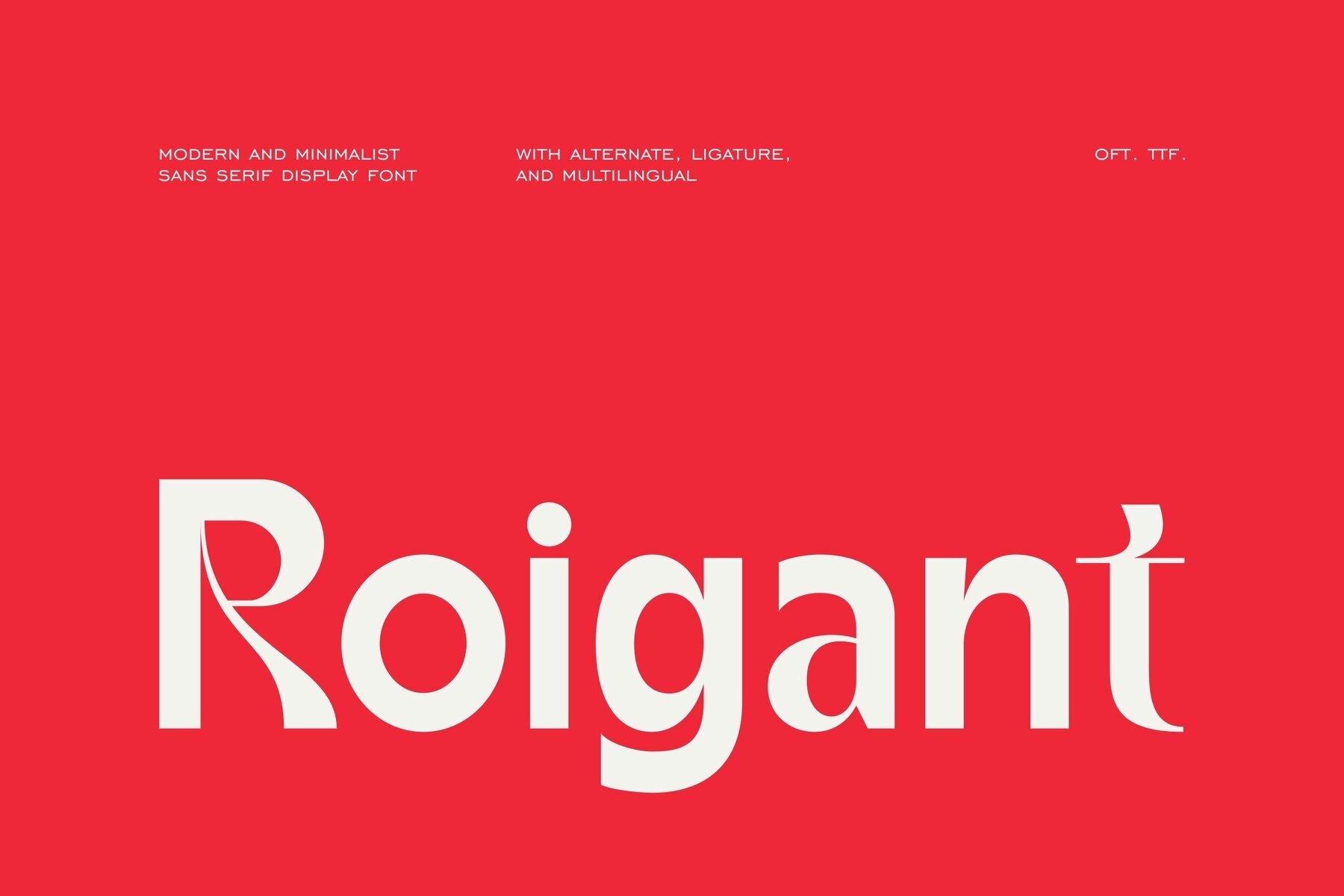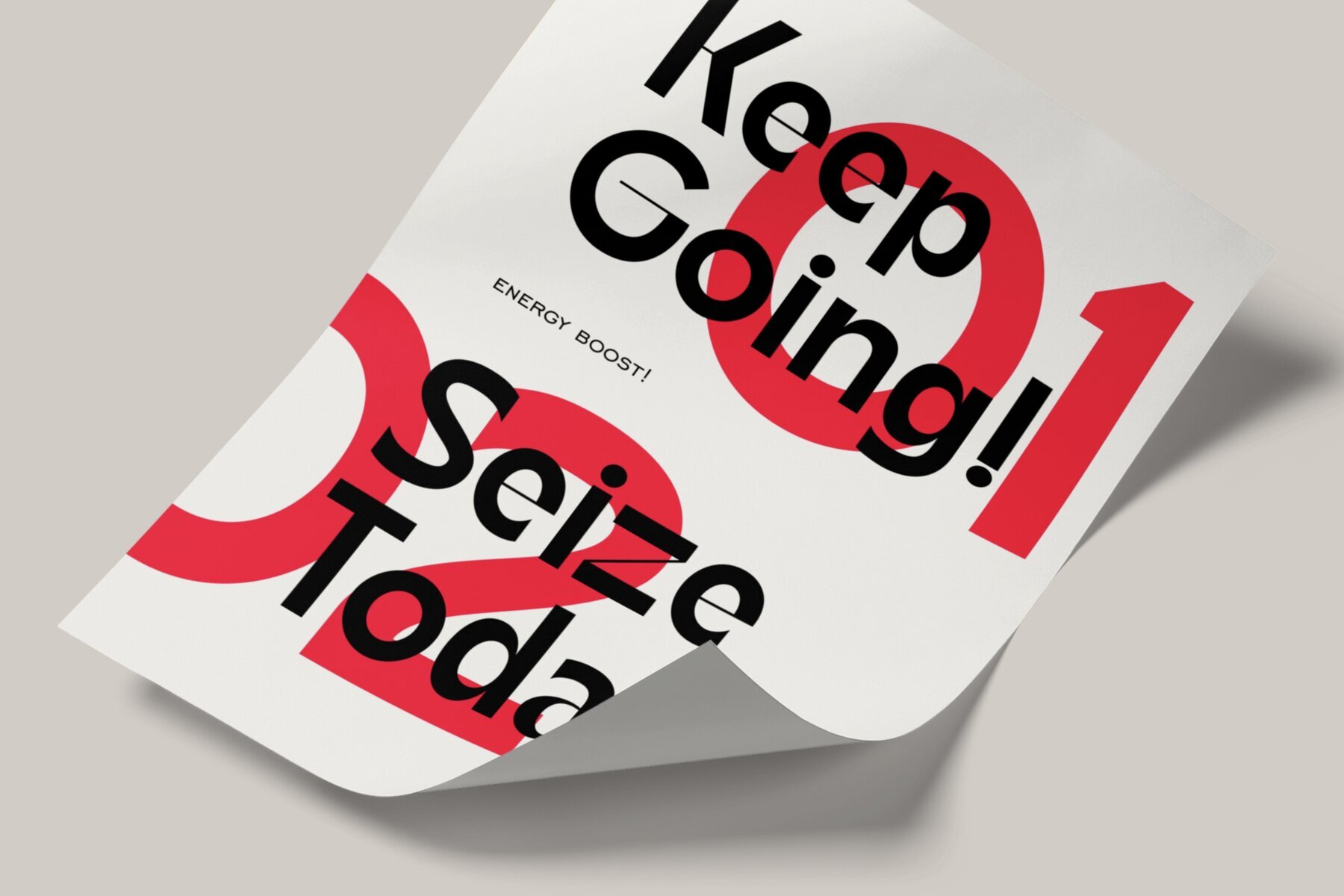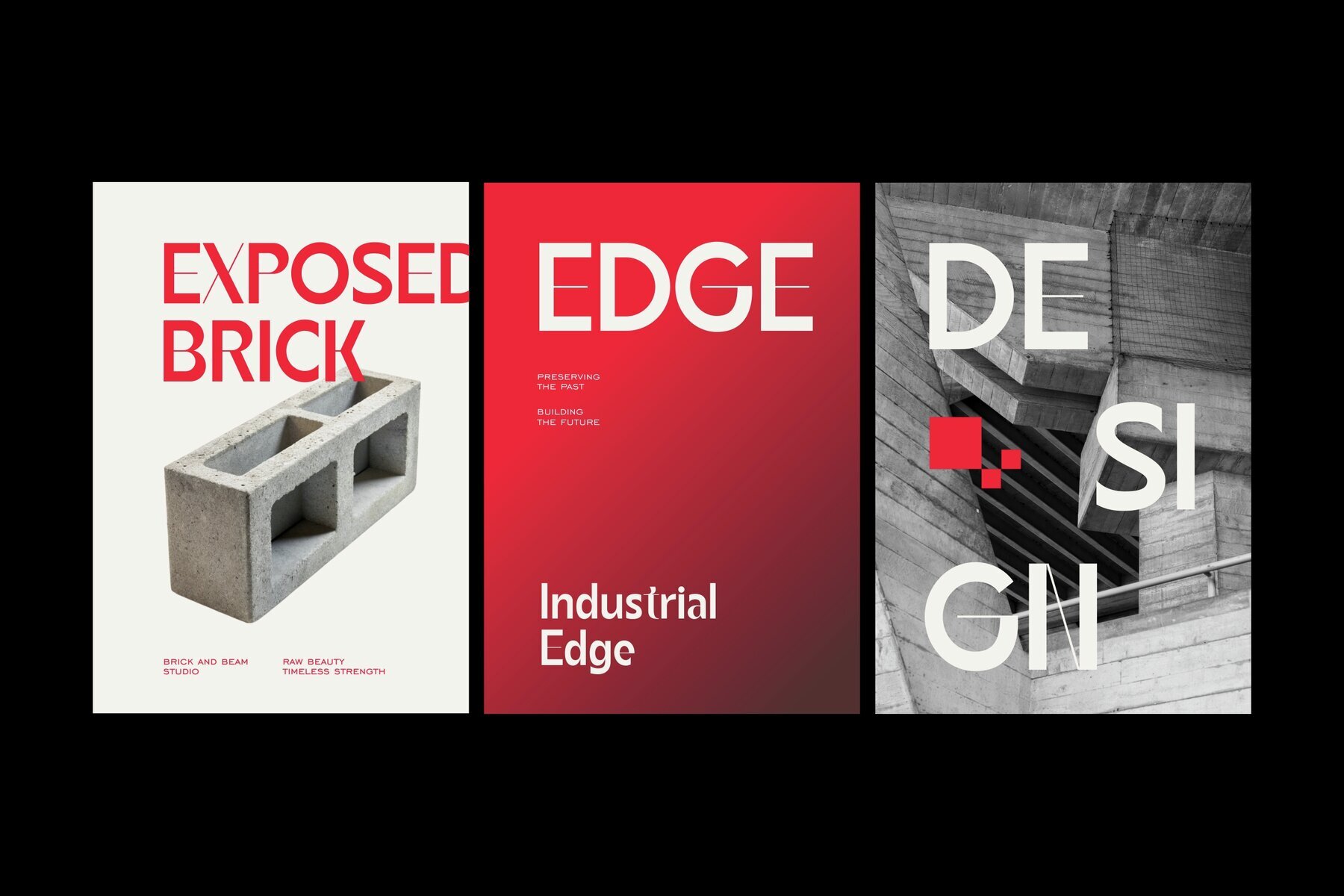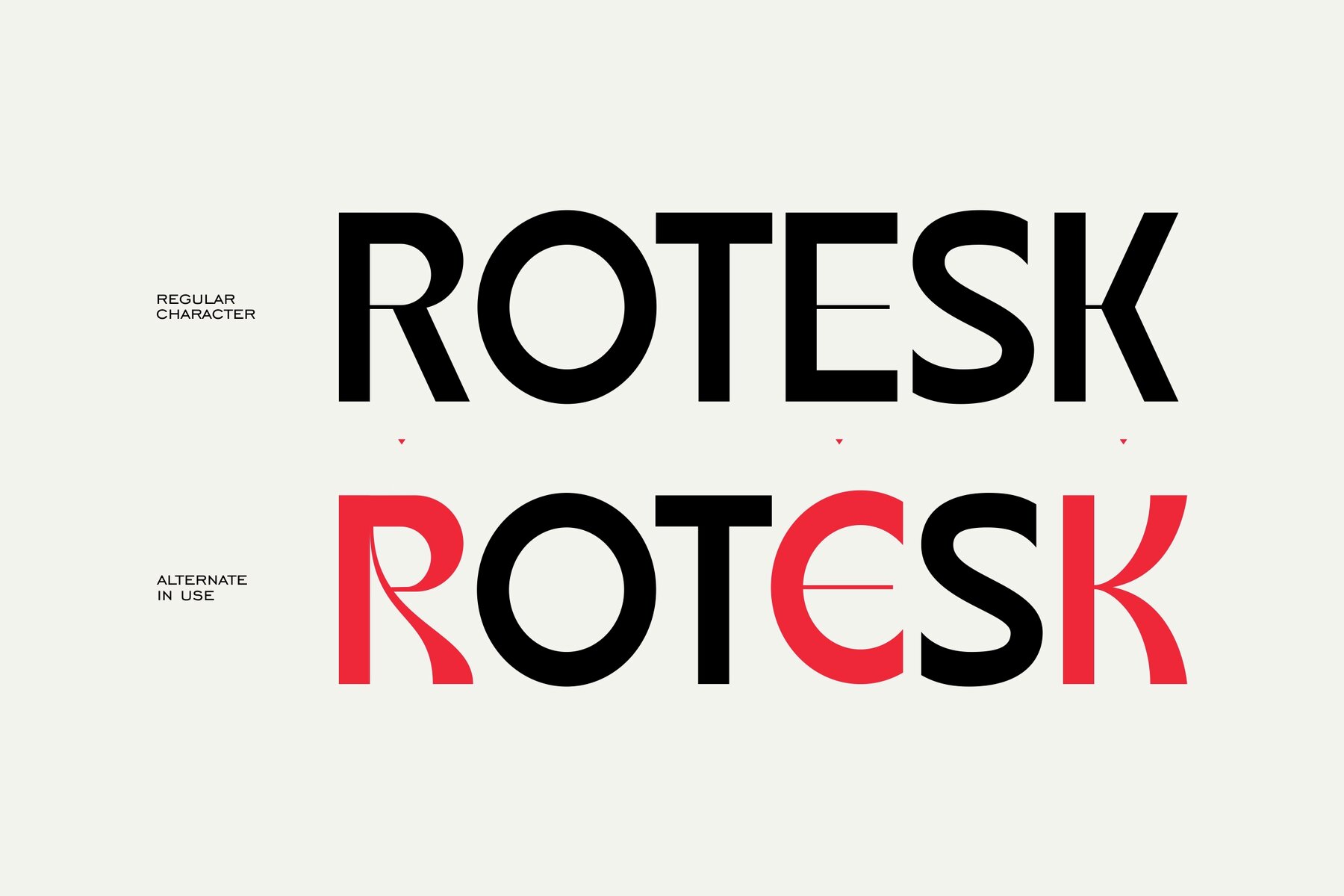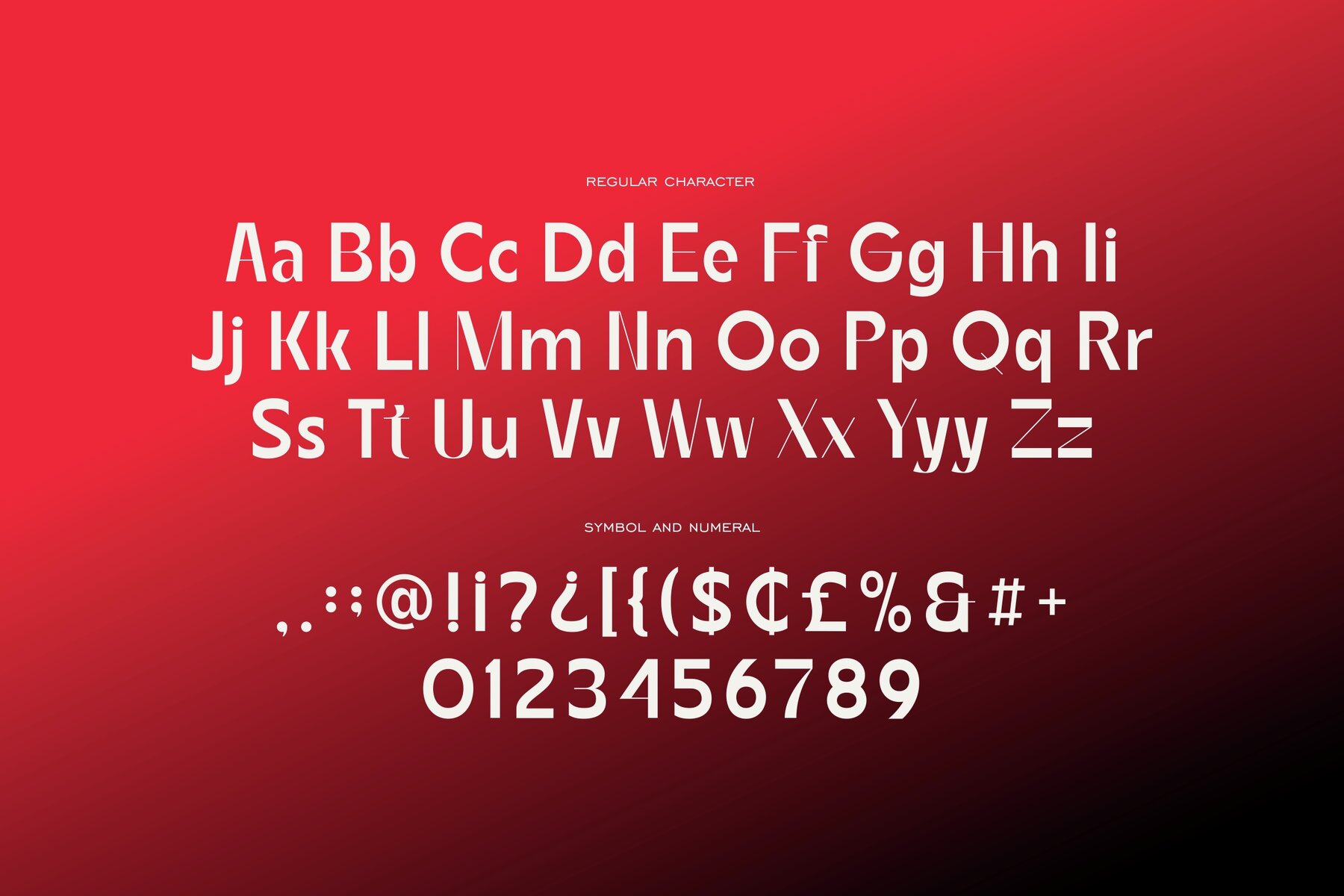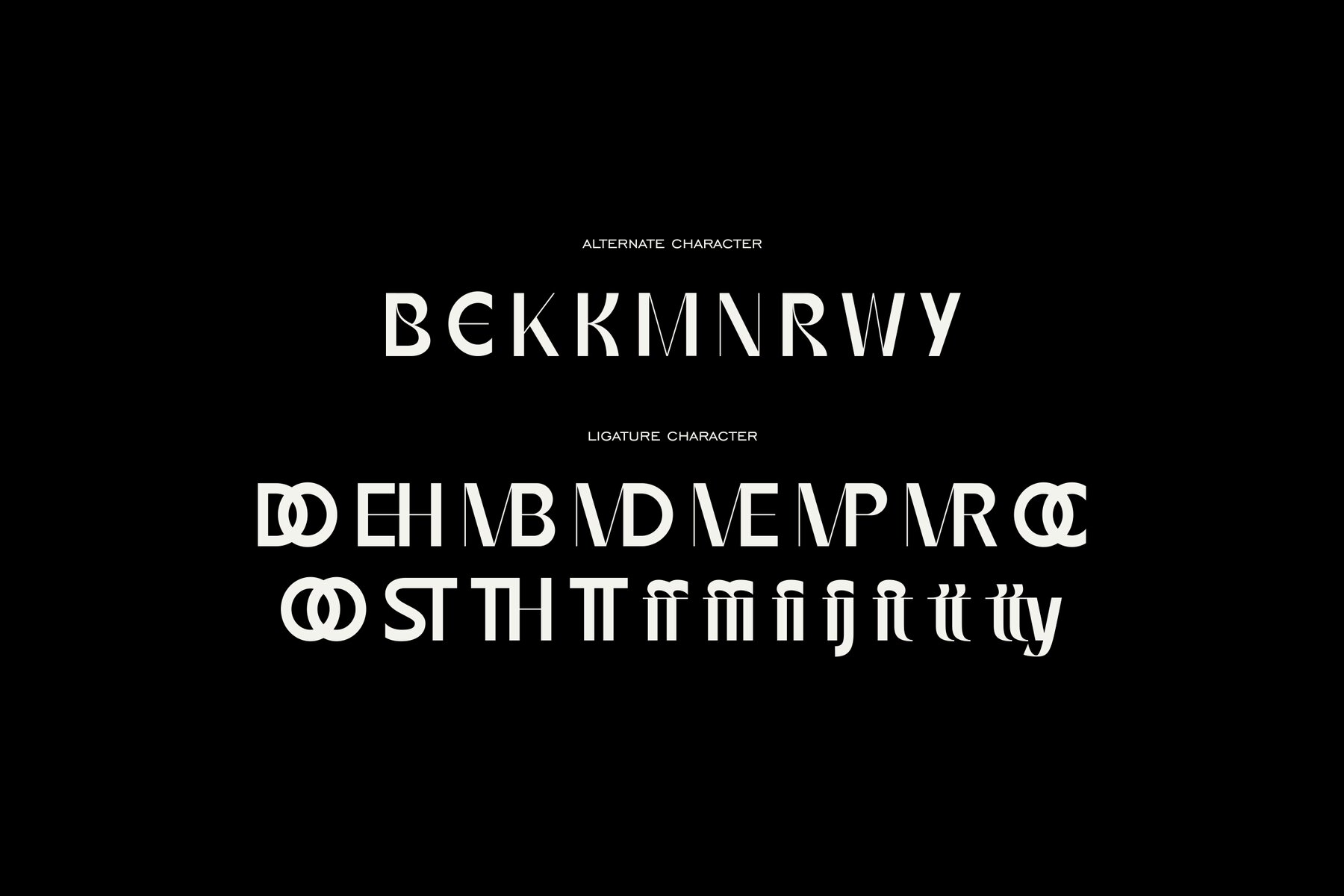
Roigant Font
Roigant Regular
Roigant is a contemporary sans serif display font, designed for modern and minimalist appeal. Its sleek style and subtle decorative details, like the curvy R, provide a distinctive look while maintaining refined clarity. Roigant adapts equally well to digital interfaces and editorial design, ensuring strong visual presence across formats. This typeface stands out in both short and long texts, offering crisp readability for branding and editorial applications. Its balanced proportions make it a natural choice for projects where clarity, style, and sophistication are paramount.Roigant Modern Minimal Sans Serif Font